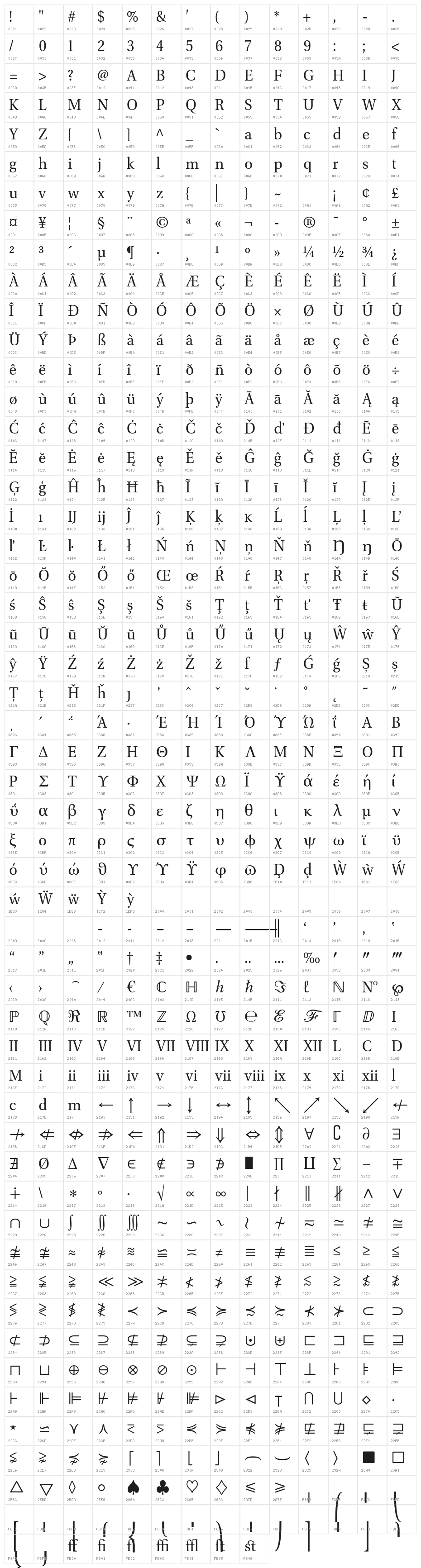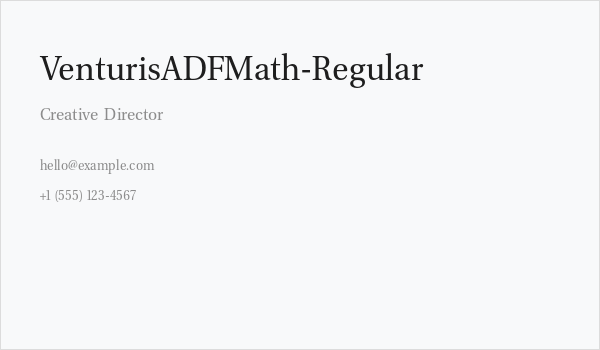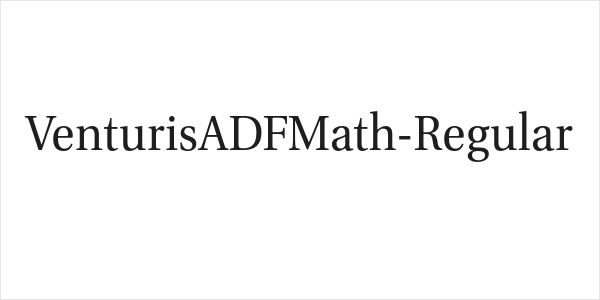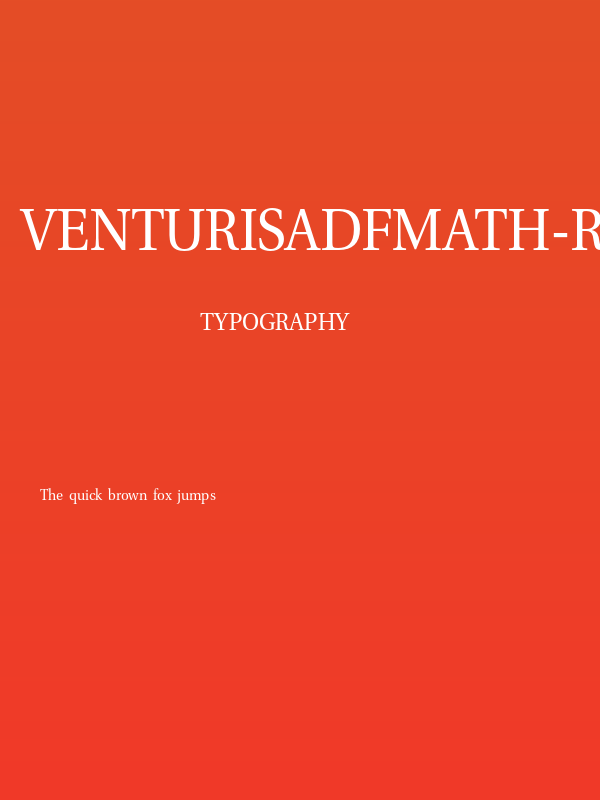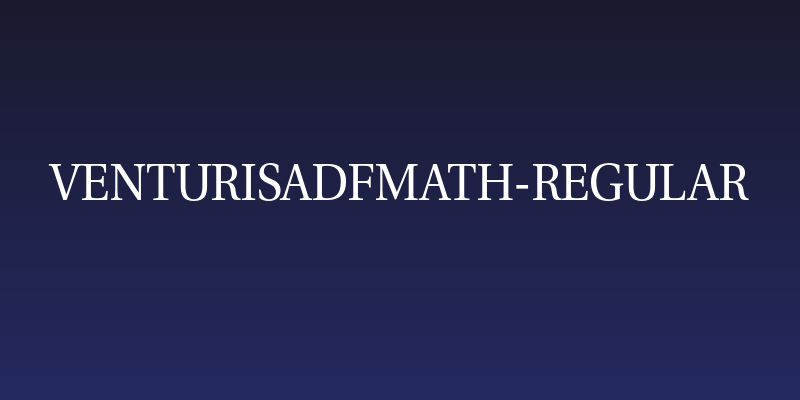
VenturisADFMath-Regular Font
VenturisADFMath-Regular Description
This font features a classic serif design with elegant and refined strokes. The uppercase letters are bold and commanding, while the lowercase letters maintain a consistent and harmonious flow. The numerals are clear and well-proportioned, making them easy to read. Special characters are distinct and complement the overall style. The font's design is suitable for both digital and print media, offering versatility and readability. Its balanced contrast and traditional serif elements make it ideal for formal and professional applications.
| Use Case | Body text, Headlines, Print media |
| Proposed Projects | Ideal for book typesetting, formal invitations, academic publications, and corporate branding. |